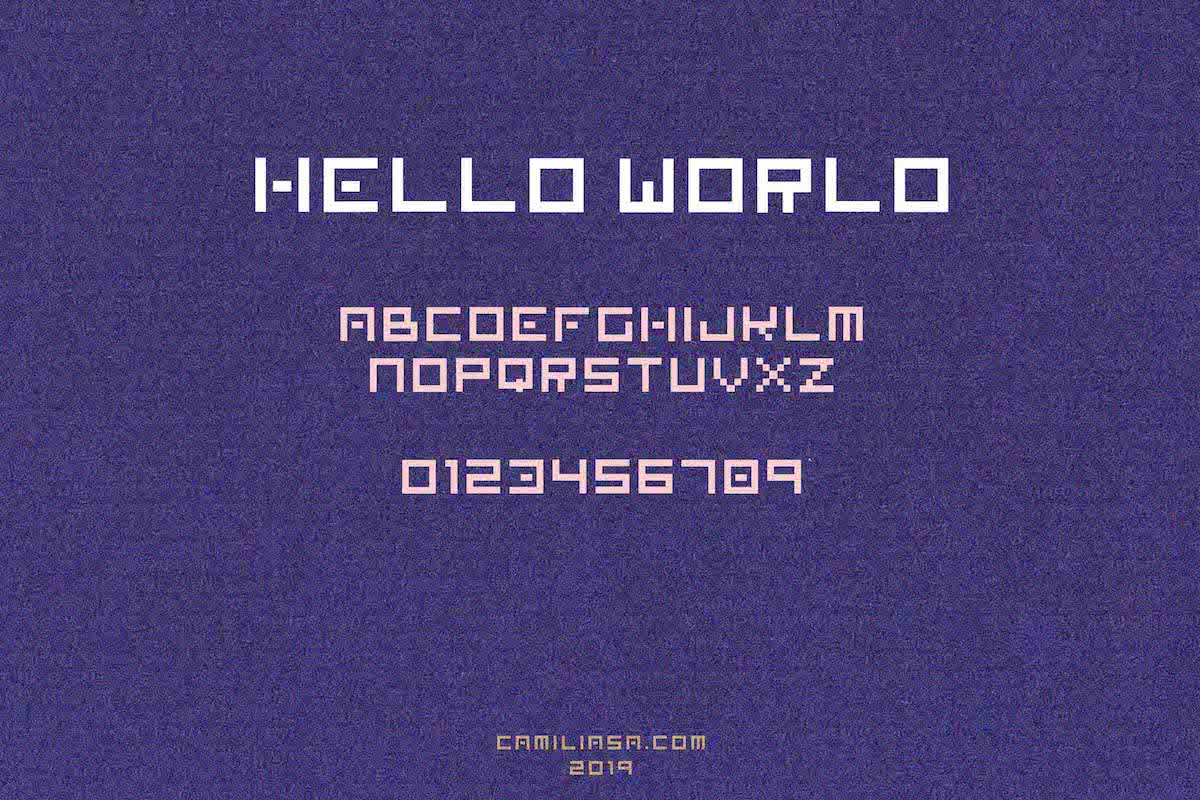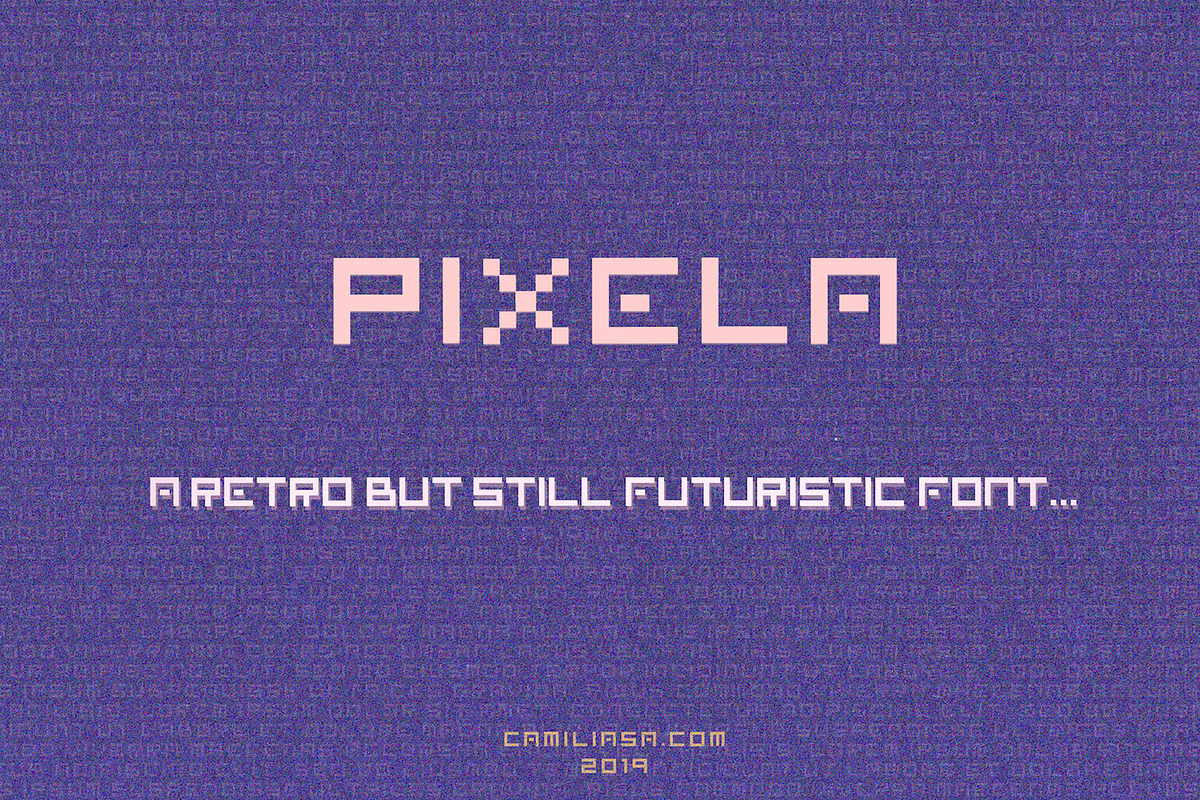
I am very happy to introduce "Pixela", a cool and fun display font with a futuristic feel. Use it to bring your design project to the next level !
"Pixela" comes in uppercase & numbers. You can see all the glyphs displayed in the preview images above.
For example, you can use this font for:
- typography designs
- text on illustrations
- print text on various objects such as cards, mugs, t-shirts, notebooks, wallpaper, wedding invitations, birthday cards, etc
& more !